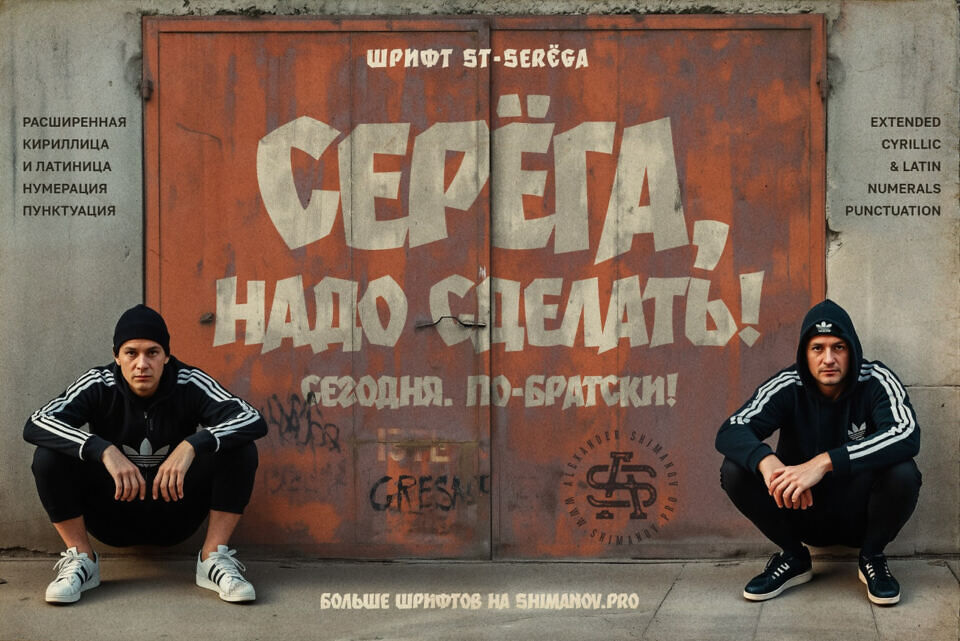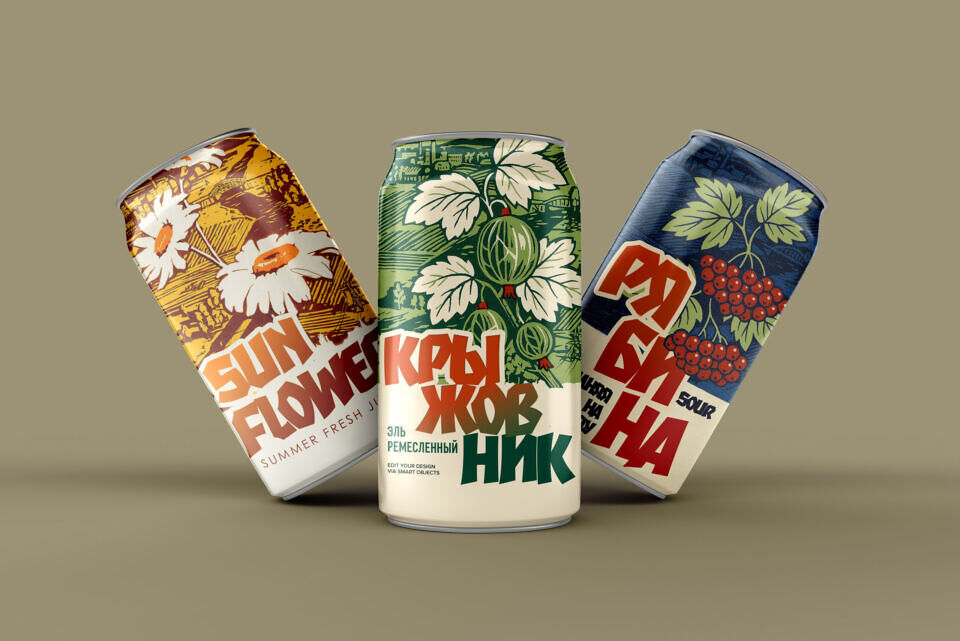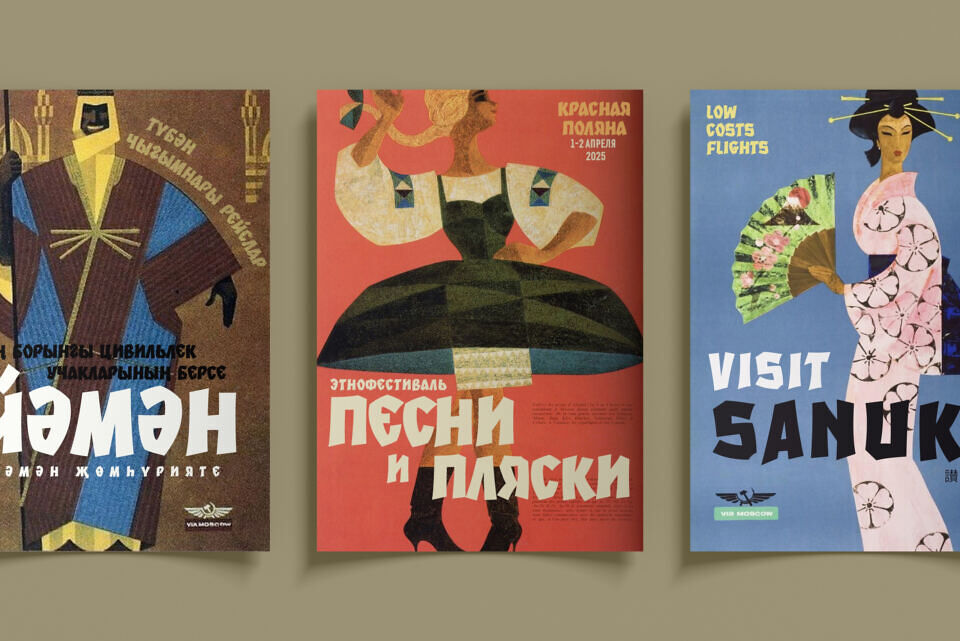
The “Seryoga” font is all about style and boldness. Modern design calls for attitude and street culture, and “Seryoga” will help make your text loud and impactful.
This font is perfect for sports and travel-themed designs, as well as any other project that needs strength and confidence while maintaining a playful tone.
Includes: letters, numbers, and very basic punctuation. Extended Latin and Cyrillic character support.